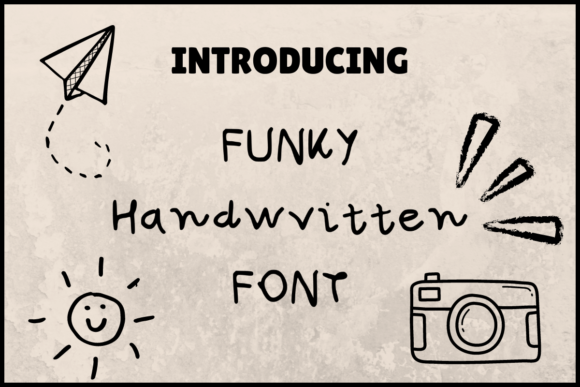
Adding a Personal Touch to Your Projects
Have you ever found yourself struggling to convey a sense of personality in your designs? You’ve got the perfect idea, but the words just aren’t coming together in the way you envisioned. You’re not alone! Many designers face this challenge, but what if you could tap into a font that captures the essence of your creativity and adds a human element to your work?
Enter the Funky Handwritten Font – a one-of-a-kind typeface that embodies the spirit of hand-crafted design. This unique font is designed to bring a natural, playful vibe to your projects, making it perfect for DIY enthusiasts, social media creators, and branding experts alike. With its quirky, casual strokes, the Funky Font adds a lighthearted and personalized feel to any text, making it a valuable asset for designers looking to take their work to the next level.
Funky Font Key Features
- Unique Characteristics: Funky Font features a unique blend of funky and playful letterforms, making it perfect for creating eye-catching designs.
Funky Font Review
Overall, I’d say Funky Font is a fun and quirky addition to any design project. It’s perfect for those who want to add a bit of whimsy and personality to their work. ✨
Here are some of its strengths:
- Funky Font comes in a variety of styles, from bold and playful to elegant and sophisticated. This means you can use it to create a wide range of moods and atmospheres.
- The font is highly customizable, with options for adjusting the size, color, and even the texture of the letters.
- Funky Font is incredibly versatile, working well in both digital and print designs.
- Funky Font can be a bit too playful for some projects, so you’ll need to use your discretion when deciding whether it’s the right choice.
- The font can be a bit overwhelming in large quantities, so be sure to use it sparingly.
- Some users may find the customization options a bit overwhelming, so be prepared to spend some time getting to know the font’s features.
Overall, I’d give Funky Font 4 out of 5 stars. While it may not be the best choice for every project, it’s a fun and creative option that can add a lot of personality to your work. ⚠️
Funky Font is perfect for adding a touch of personality to your designs. Here are some tips and common use cases:
- Use Funky Font for headings and titles to add a fun and playful touch.
- Pair Funky Font with other fonts to create a unique and eye-catching combination.
- Use Funky Font for social media graphics, posters, and flyers to add a fun and attention-grabbing element.
Alternatives to “Funky Font” for Designers
Great Vibes is a beautiful, cursive font that’s perfect for adding a touch of elegance to your designs. It’s great for use in headings, titles, and quotes. It’s more refined and sophisticated compared to Funky Font, which makes it suitable for more formal designs.
Pacifico is a modern, elegant script font that’s ideal for use in headings, titles, and body text. It’s more versatile than Funky Font and can be used in a variety of design contexts, from branding to advertising. Pacifico is also more readable and easier to use in large blocks of text.
Alex Brush is a handwritten font that’s perfect for adding a personal touch to your designs. It’s great for use in headings, titles, and quotes, and is more suitable for creative and artistic projects. Alex Brush is more unique and expressive compared to Funky Font, making it a great choice for designers who want to stand out.
Dancing Script is a beautiful, elegant script font that’s perfect for use in headings, titles, and body text. It’s more playful and whimsical compared to Funky Font, making it suitable for designs that require a touch of fun and personality. Dancing Script is also more versatile and can be used in a variety of design contexts.